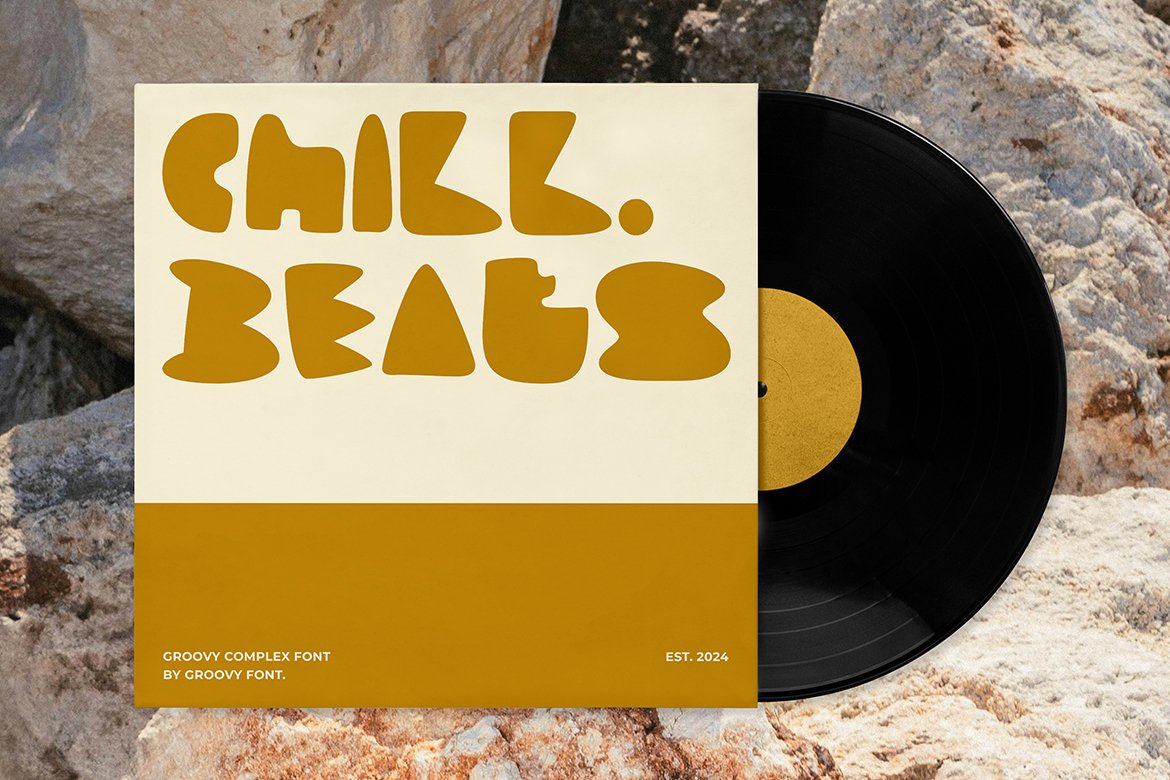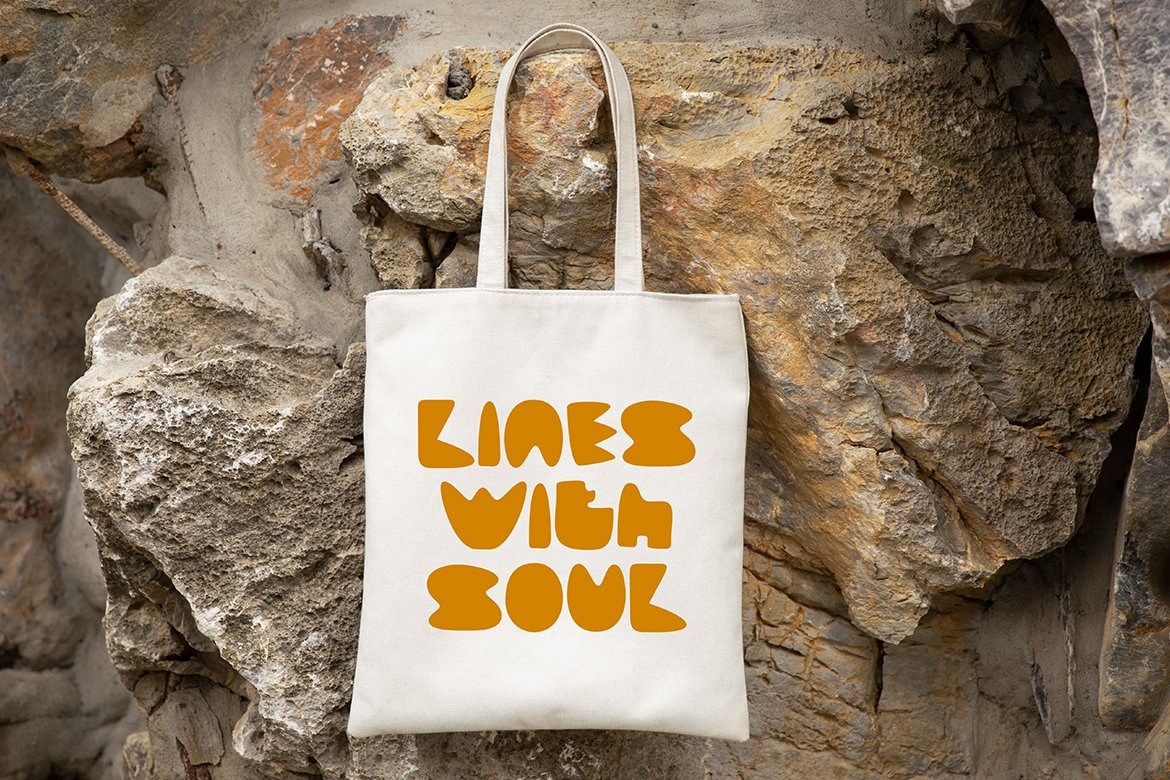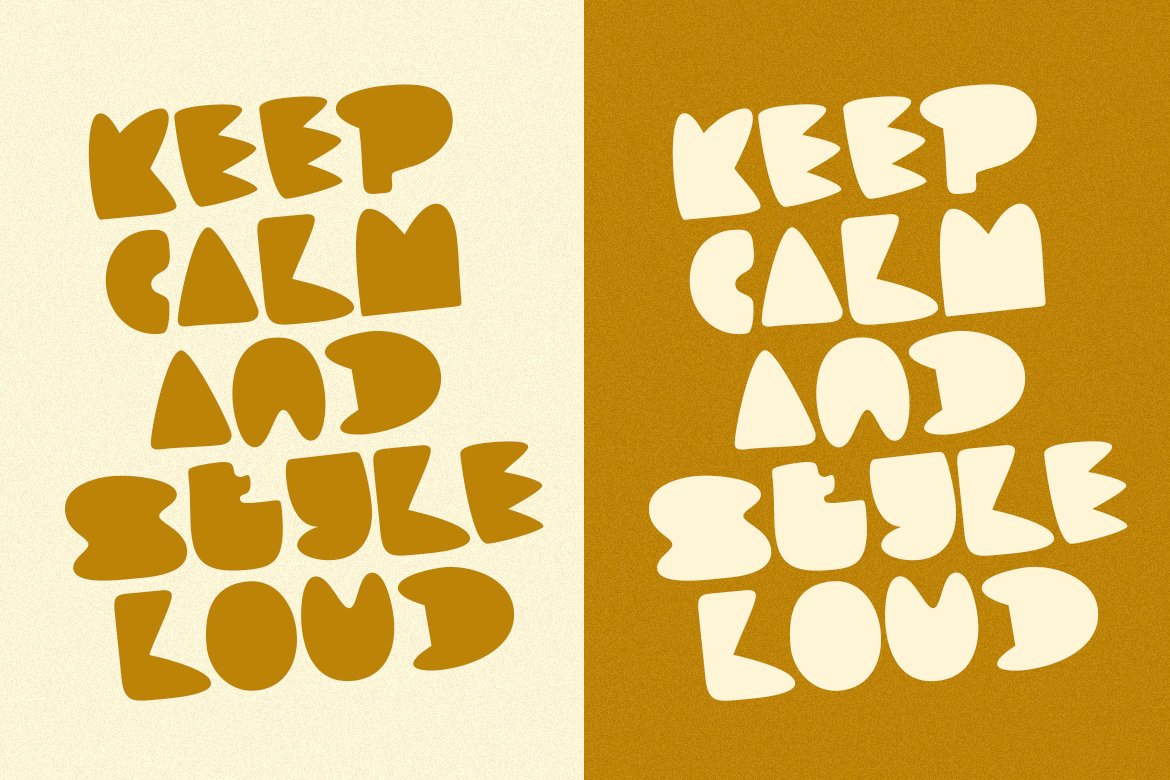
Groovy Complex
Groovy Complex is a unique hand-drawn display font that adds a touch of creativity to your designs.
Despite not having holes in each letter, this font remains highly legible and distinctive. Perfect for projects where you want a handmade or artistic feel, Groovy Complex is versatile and eye-catching.
Let this font add a touch of character and charm to your next project!